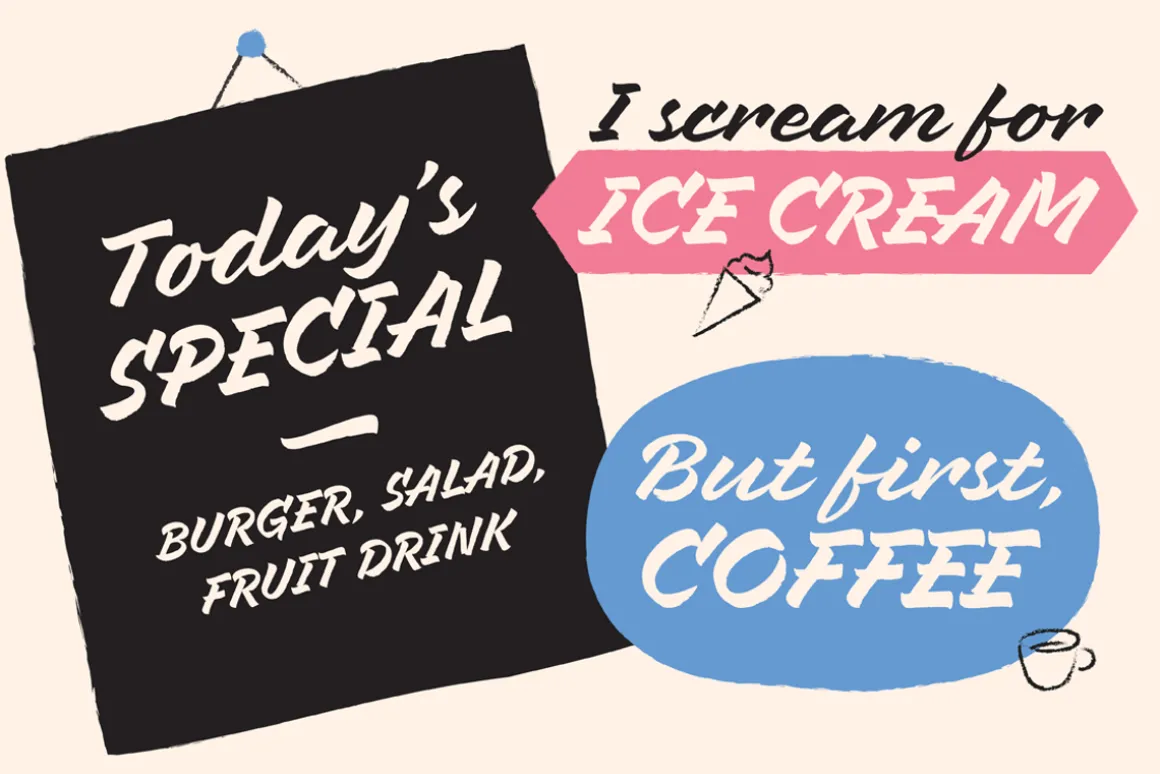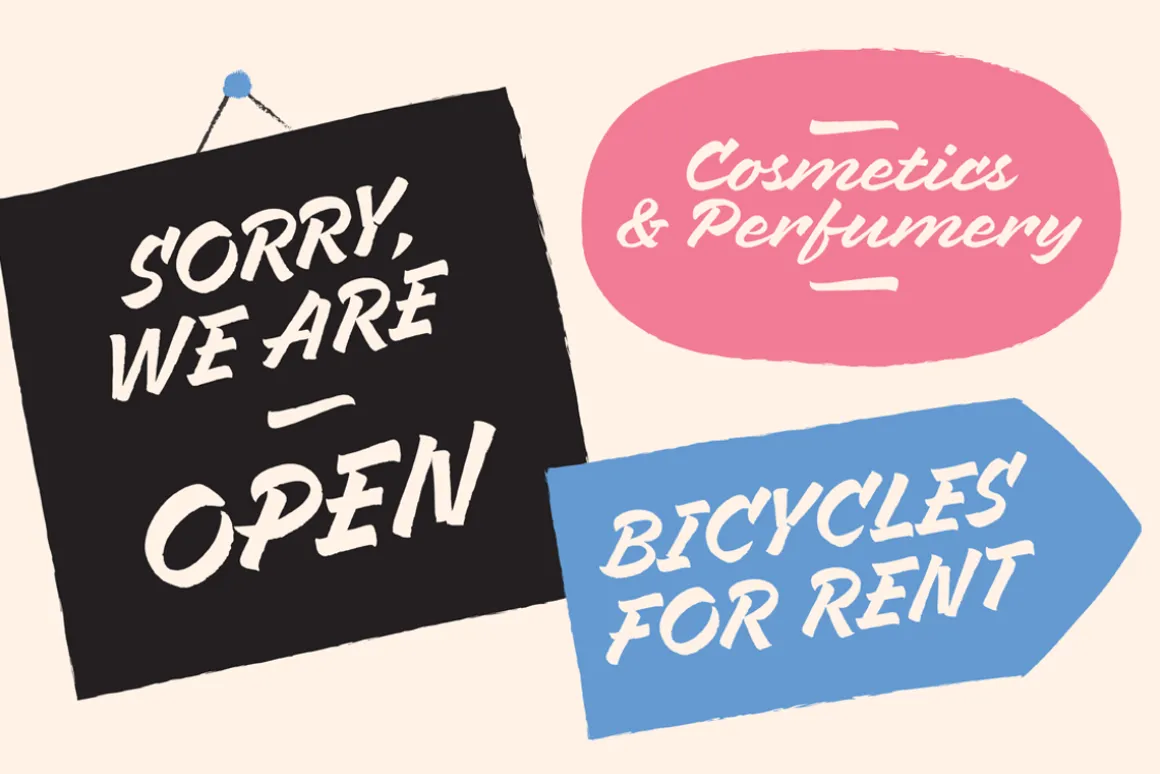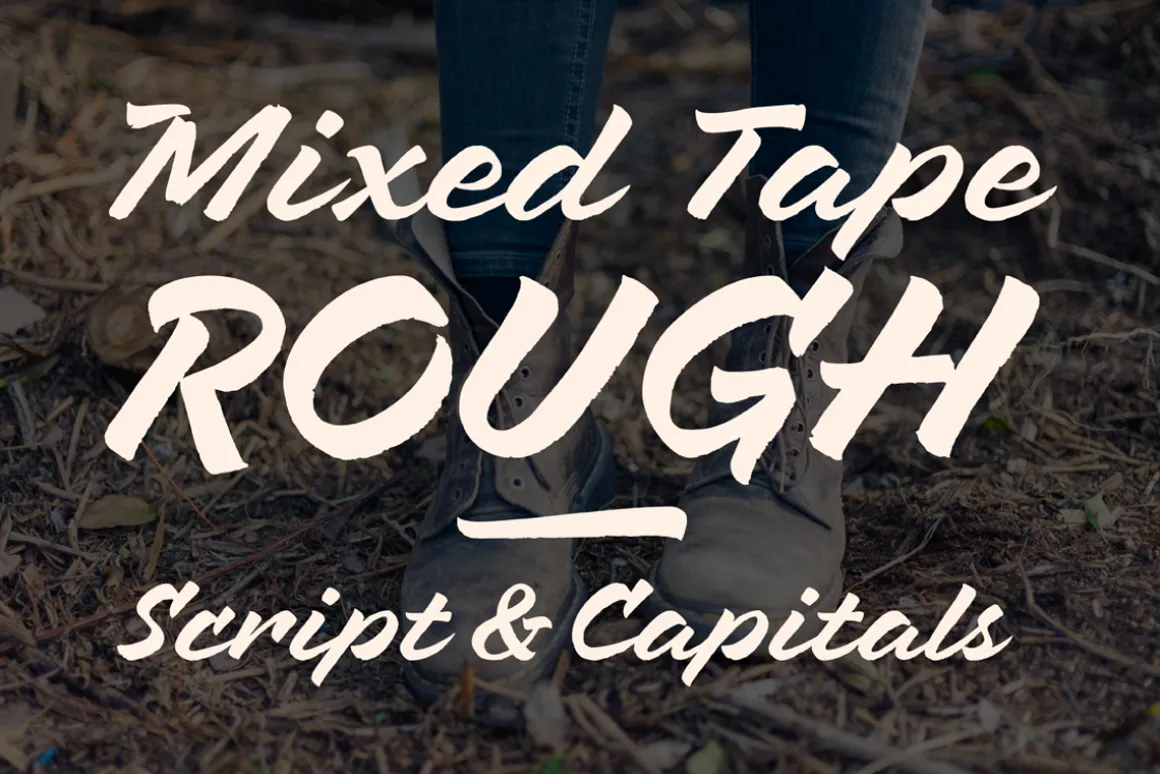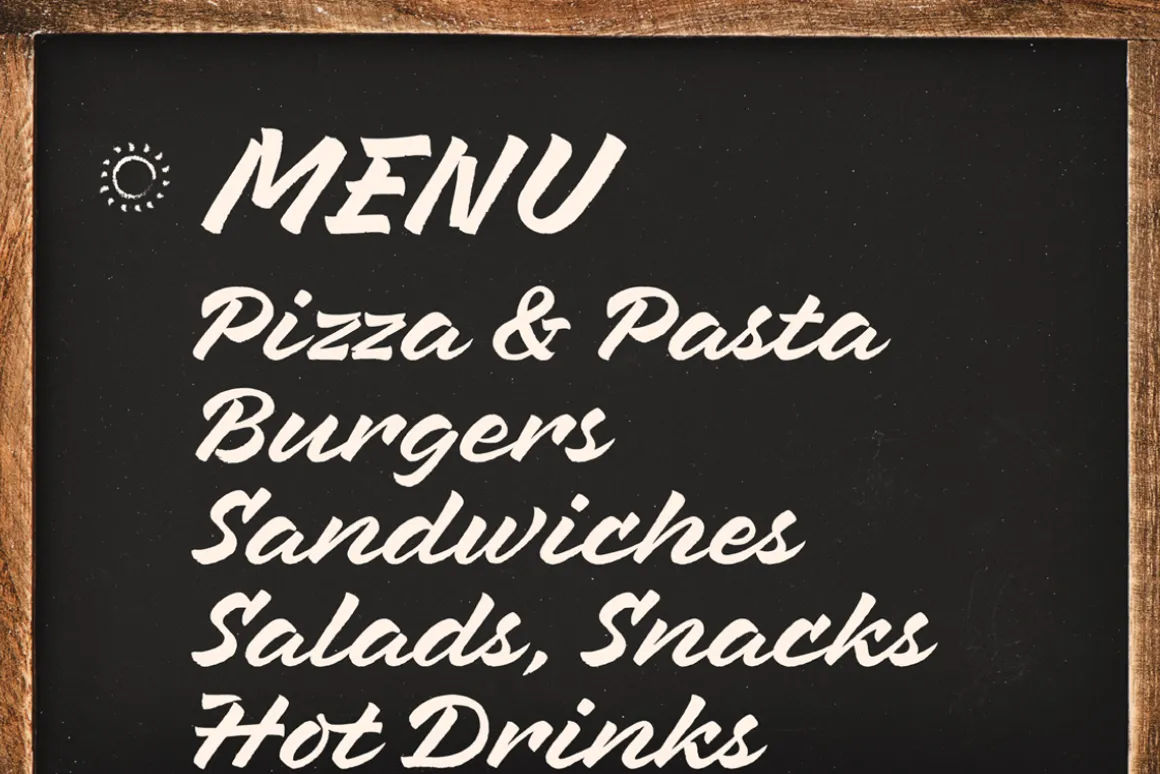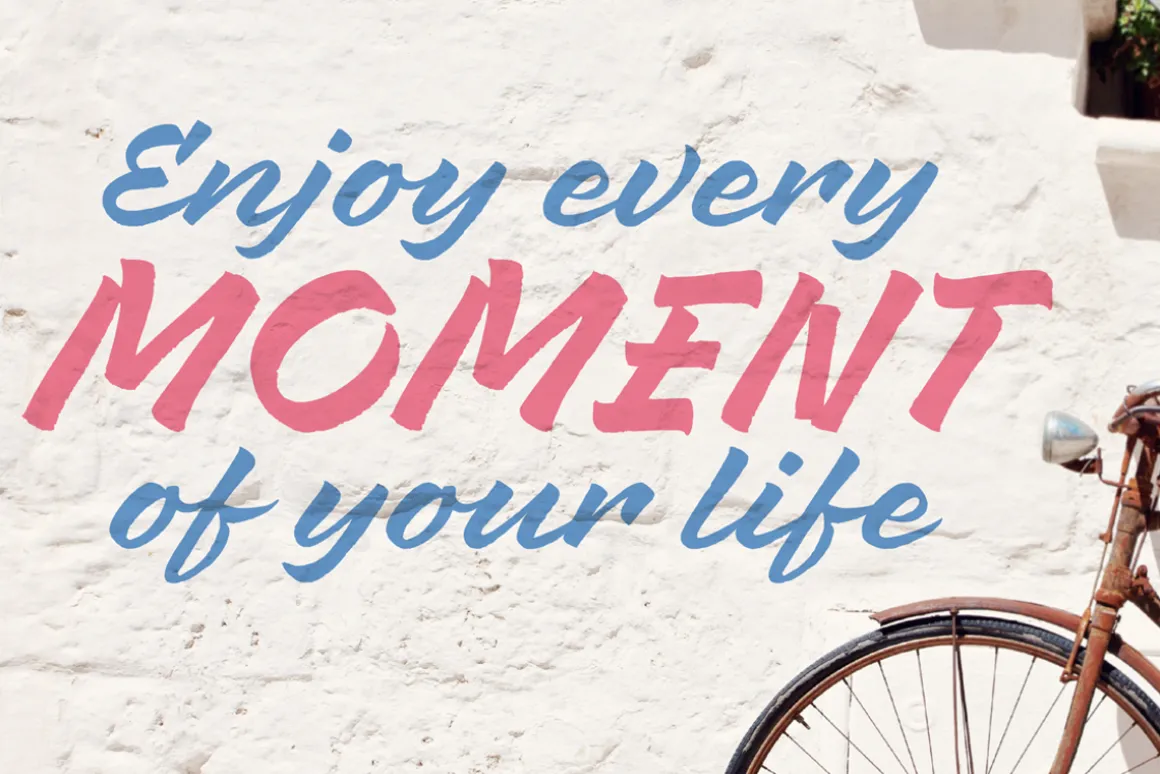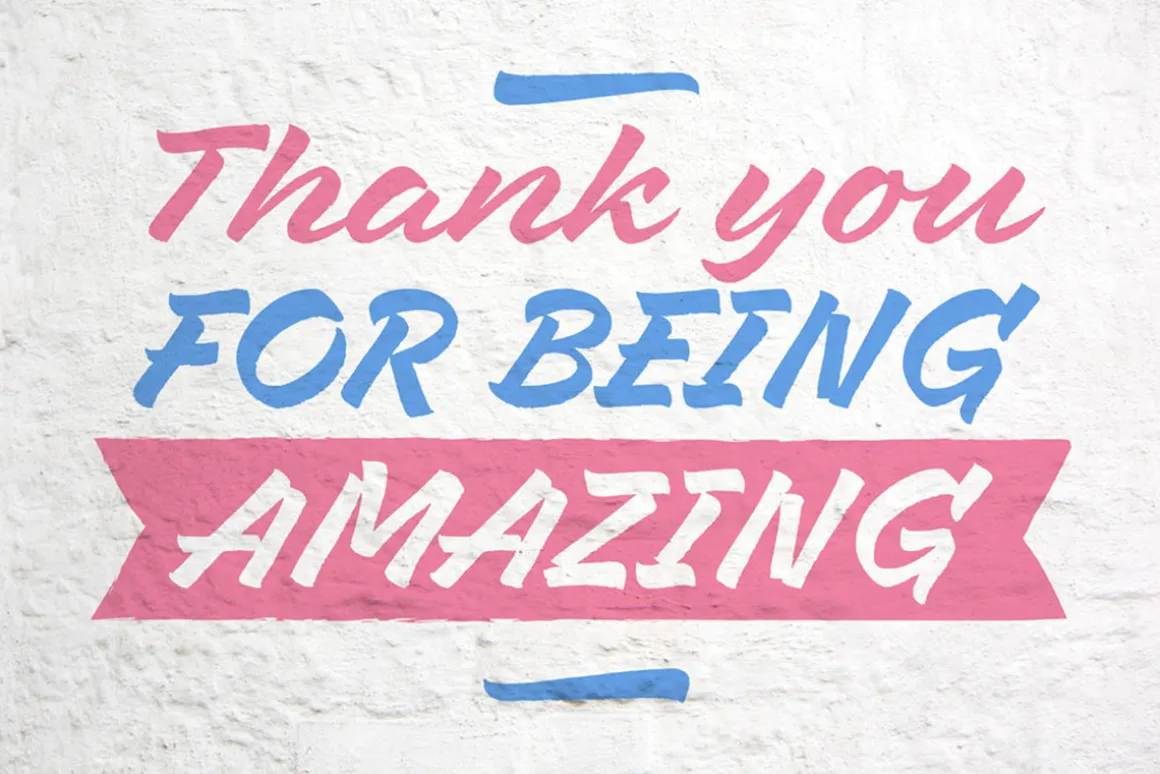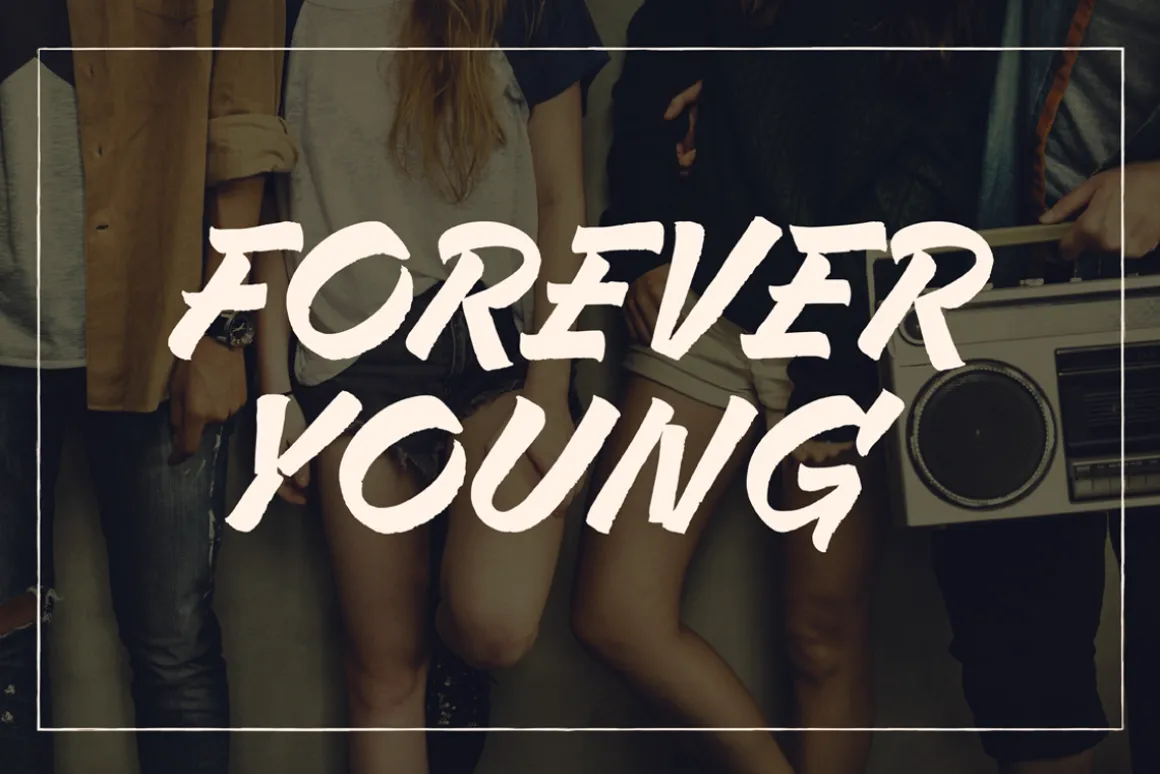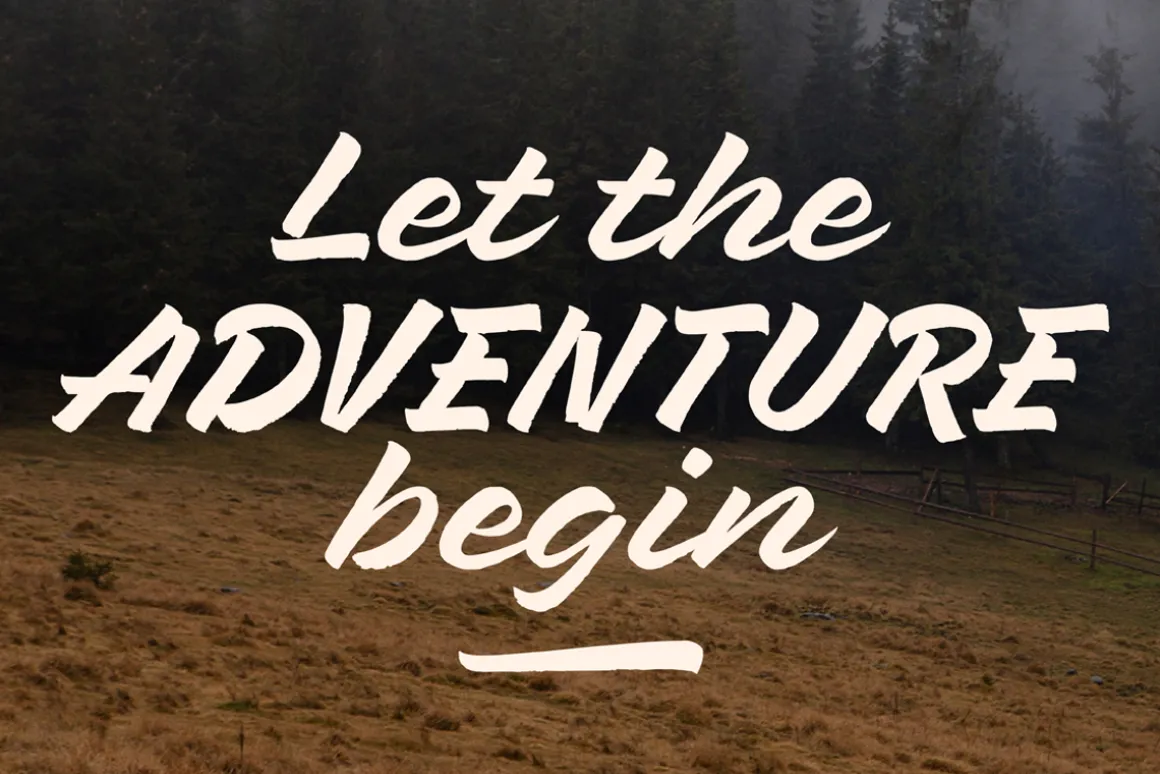
Mixed Tape Rough is a simplified version of Mixed Tape font family. It’s a rough calligraphic font duo which includes 2 Styles:
- Regular
- Capitals
It doesn’t have as many alternates as Mixed Tape and supports more languages. Mixed Tape Rough is a dynamic brush font so it can be used for posters, t-shirts, menus, packaging, headlines, etc.I hope you’ll like it!